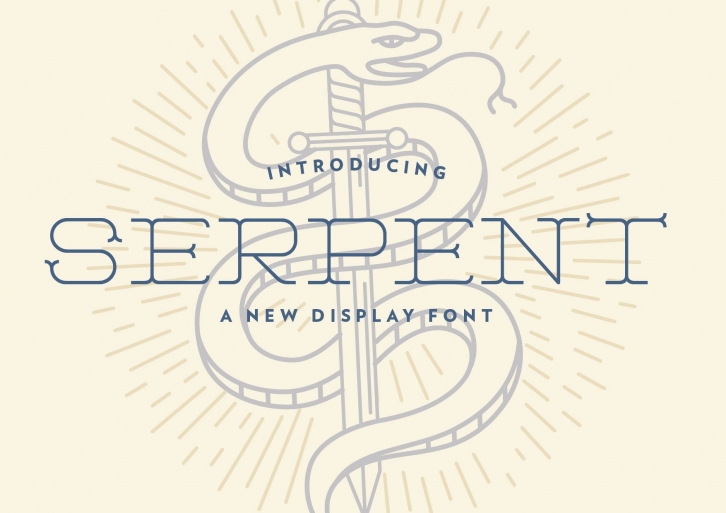
Introducing SERPENT Display Font!
Serpent is a geometric display font. It lends itself perfectly to sports design, logos, posters, packaging, brochures, t-shirts, and so much more!